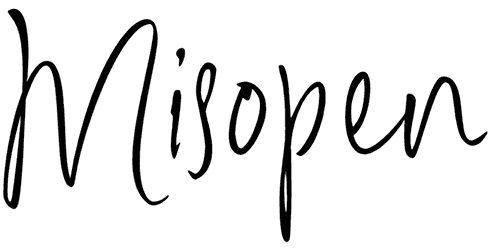
Misopen Font
Misopen font’s greatest strength is its ability to create a sense of intimacy and connection that evokes nostalgia, comfort, and familiarity. This handwritten font makes your message feel just for the reader, creating a personal relationship that resonates long after it’s read. This autograph font is a powerful tool for designers and marketers who want to add a personal touch to their work and leave a lasting impression by designing tattoos, packaging, and greeting cards.
Misopen is a handwriting script font with a unique, casual and beautiful handwriting style. Misopen was made using a calligraphy pen with a fine nib. This font was designed by writing a lot of sample letters and trying to make it connect natural. It also contains many OpenType “ligatures”.
Each letter was made with love and designed to work well on designs like invitations, wedding, signatures, clothing, photography, branding, album covers and more. Just try it yourself.